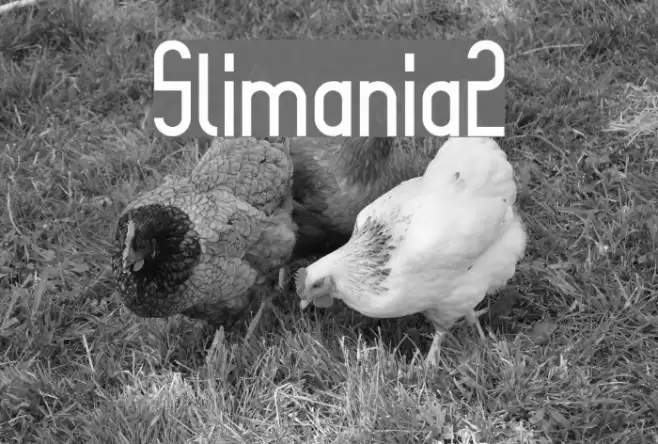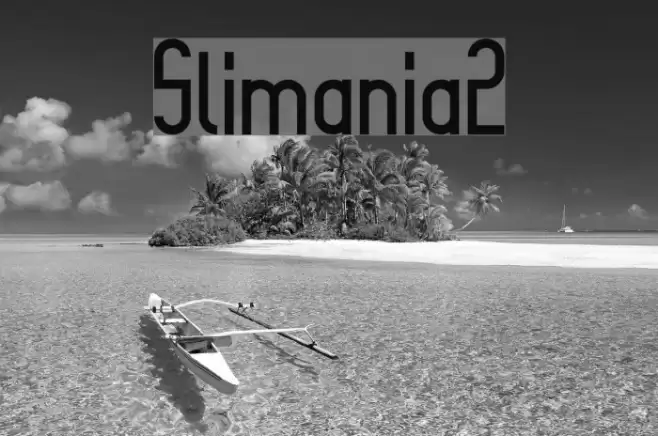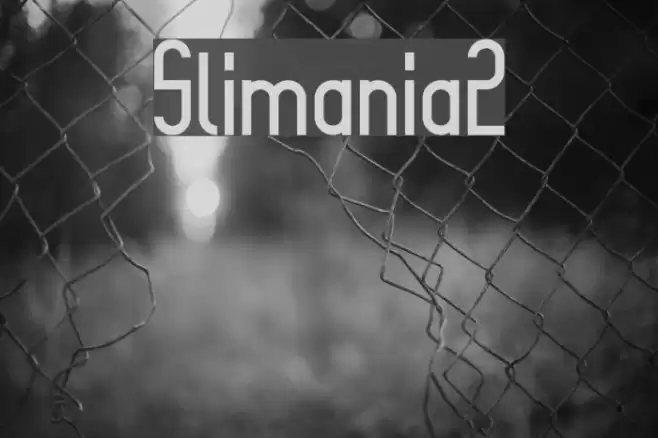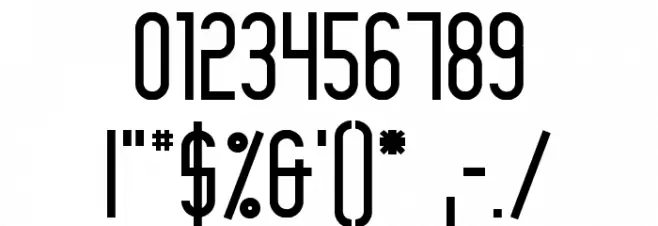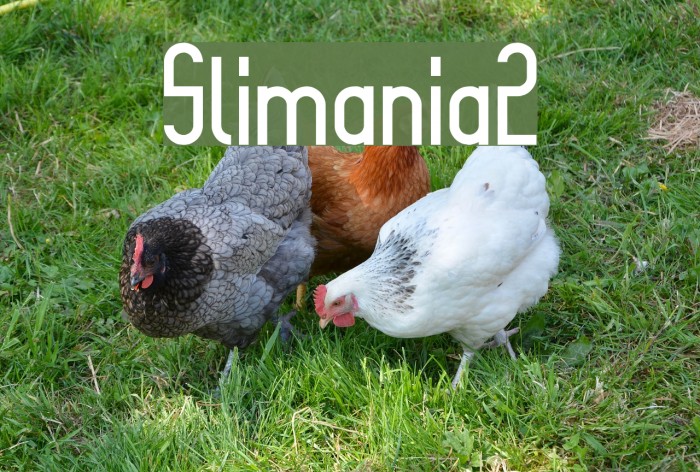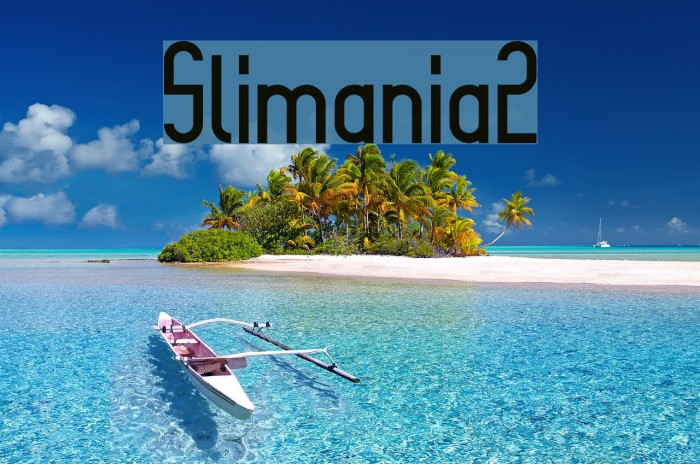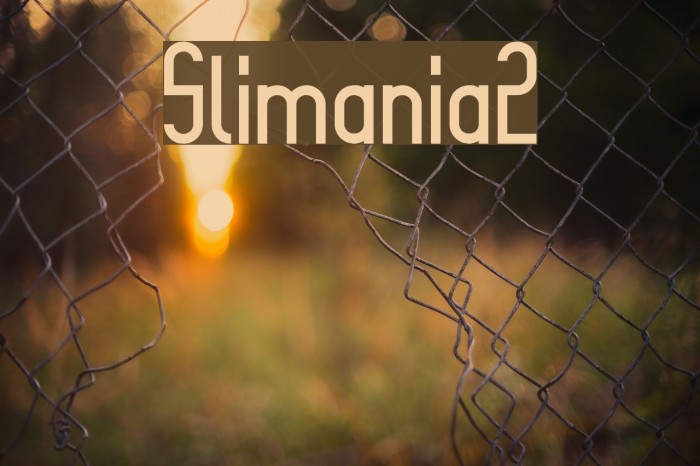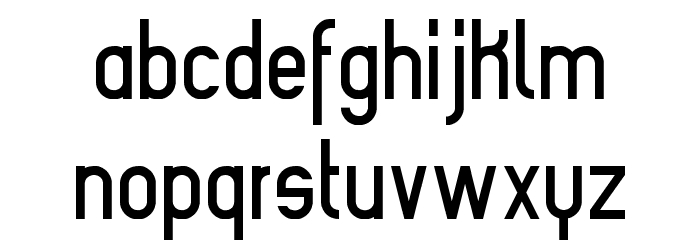
Slimania2 Font
Slimania2 Description
This font features a sleek, modern design with elongated, narrow characters that exude a contemporary aesthetic. The uppercase letters are tall and uniform, while the lowercase letters maintain a consistent height, creating a harmonious balance. The numerals are clean and straightforward, complementing the overall streamlined look. Special characters are distinct and maintain the font's minimalist style. The font's geometric structure and uniform stroke width contribute to its modern appeal, making it suitable for various design applications.
A sleek, modern font with elongated, narrow characters and a minimalist style from Sans Serif fonts.
- Proposed Projects: Ideal for branding, editorial design, digital interfaces, and advertising where a modern and clean look is desired.
- Use Case: Headlines, Logos, Digital interfaces